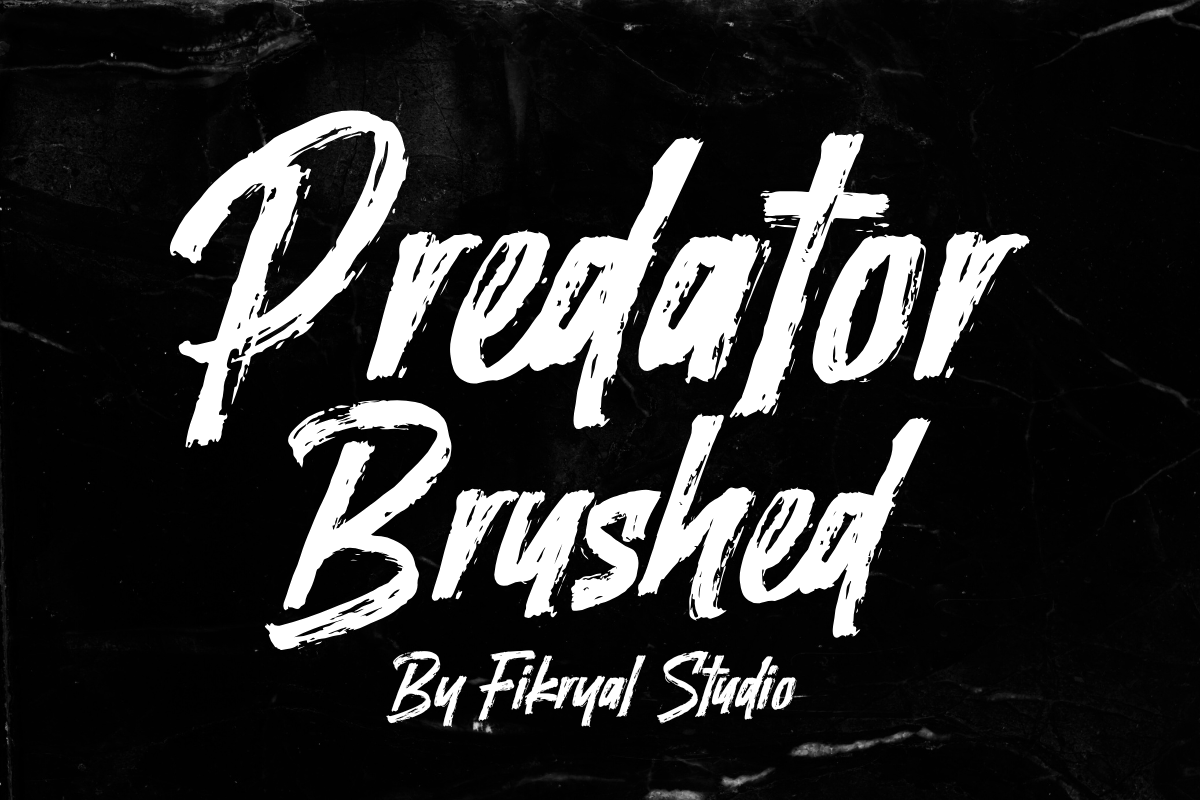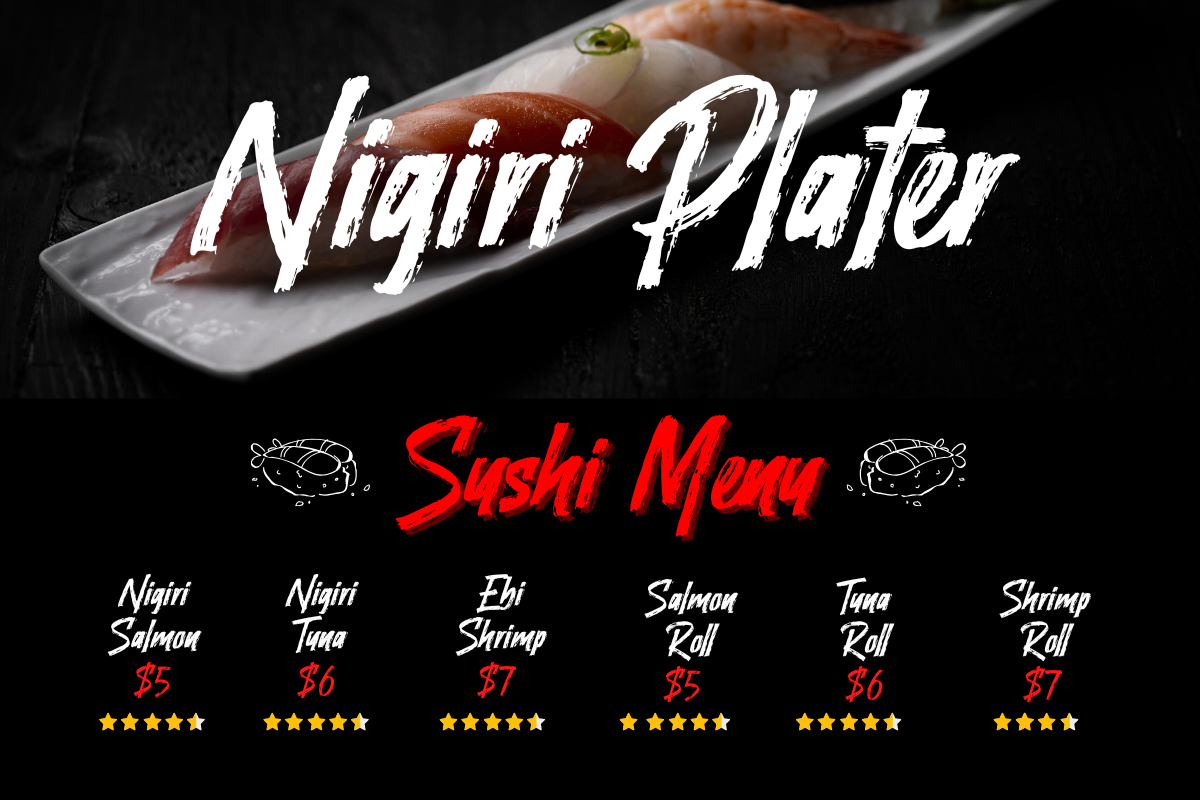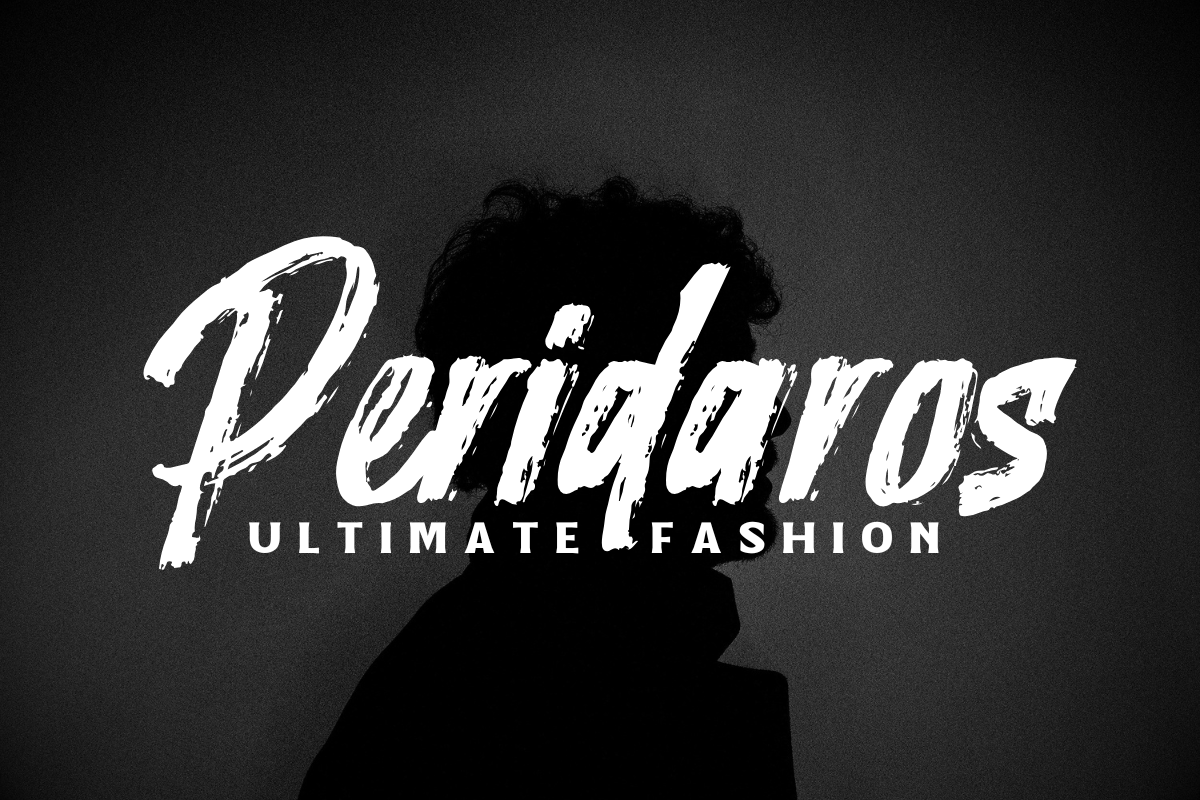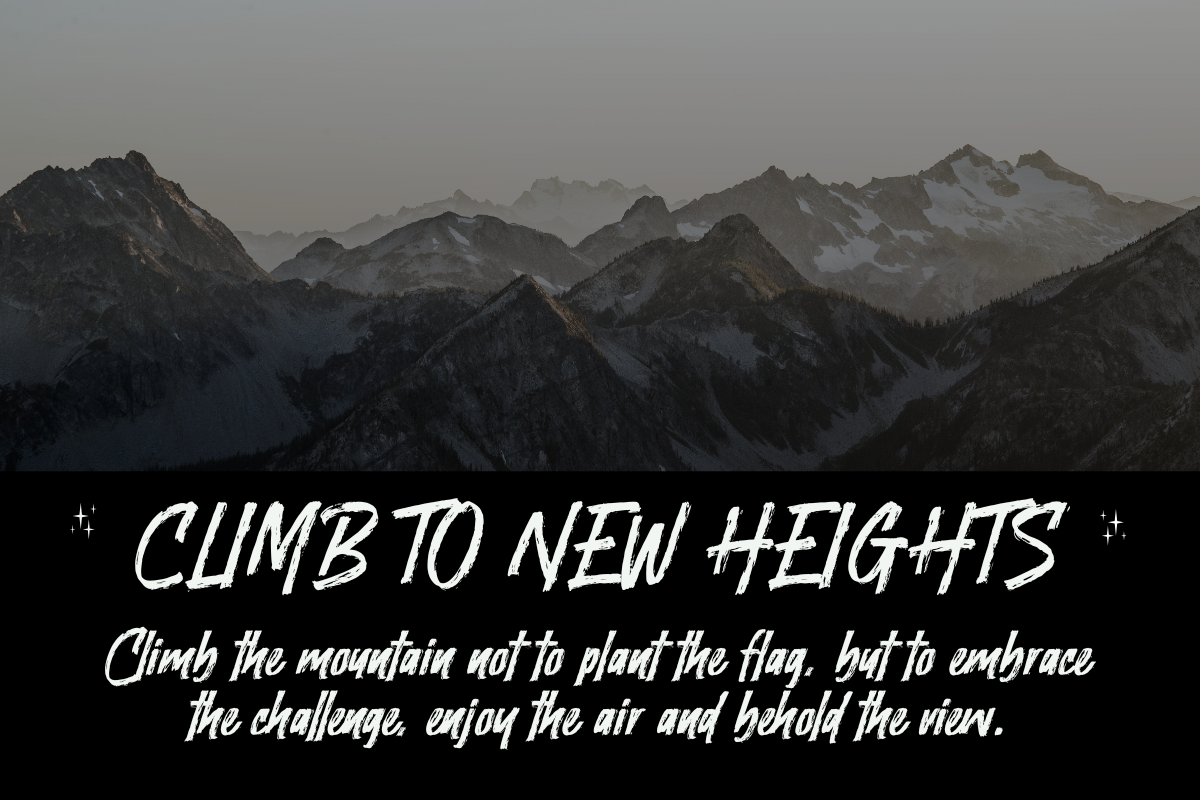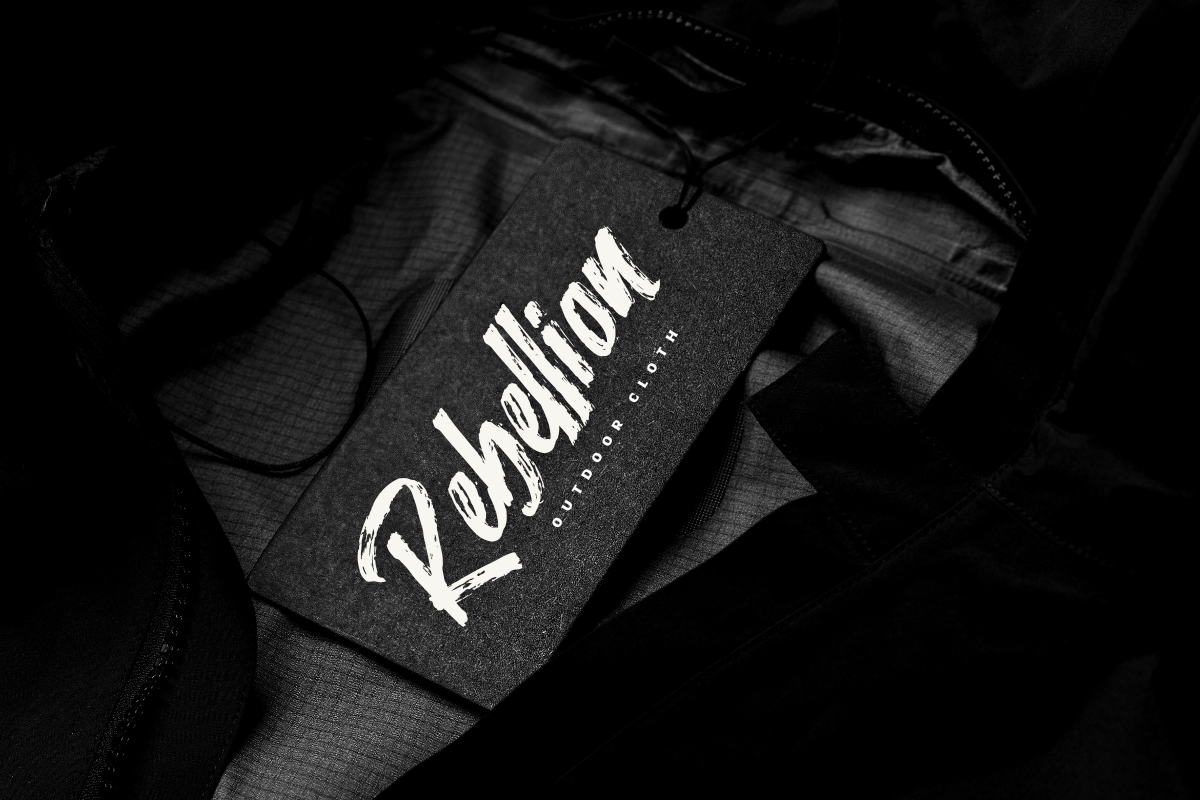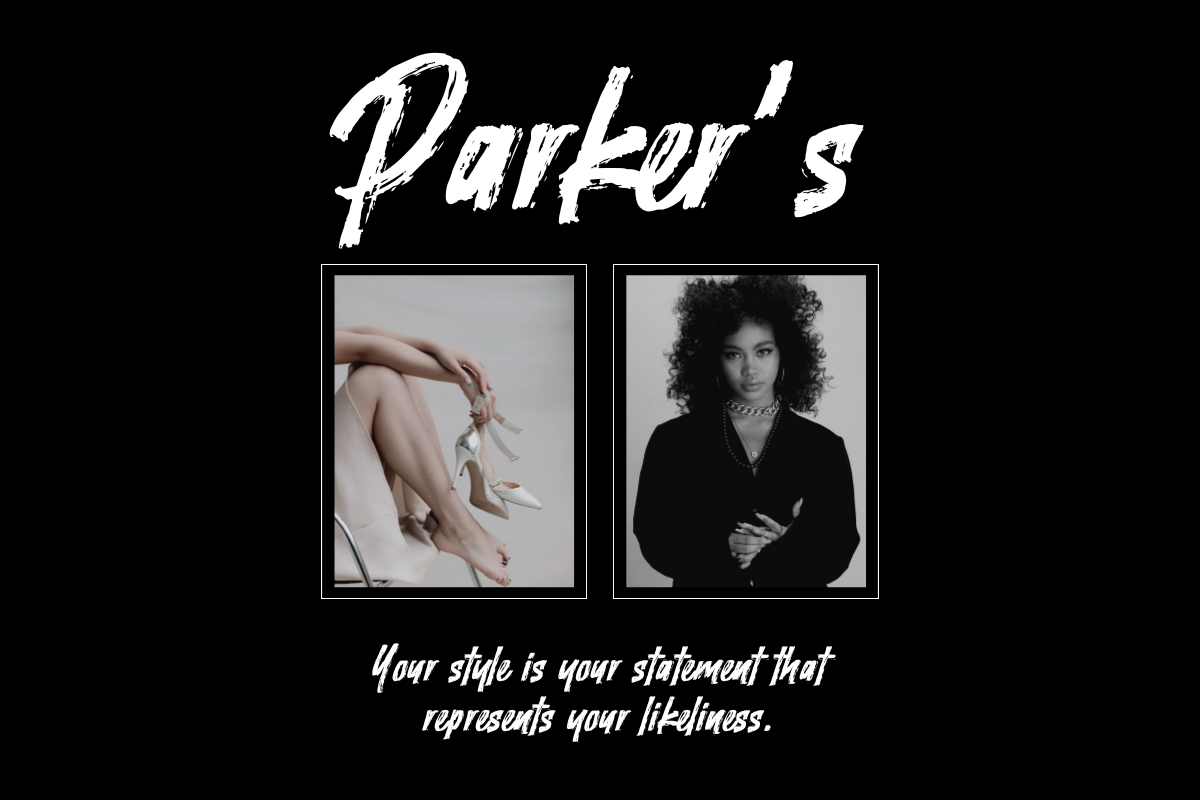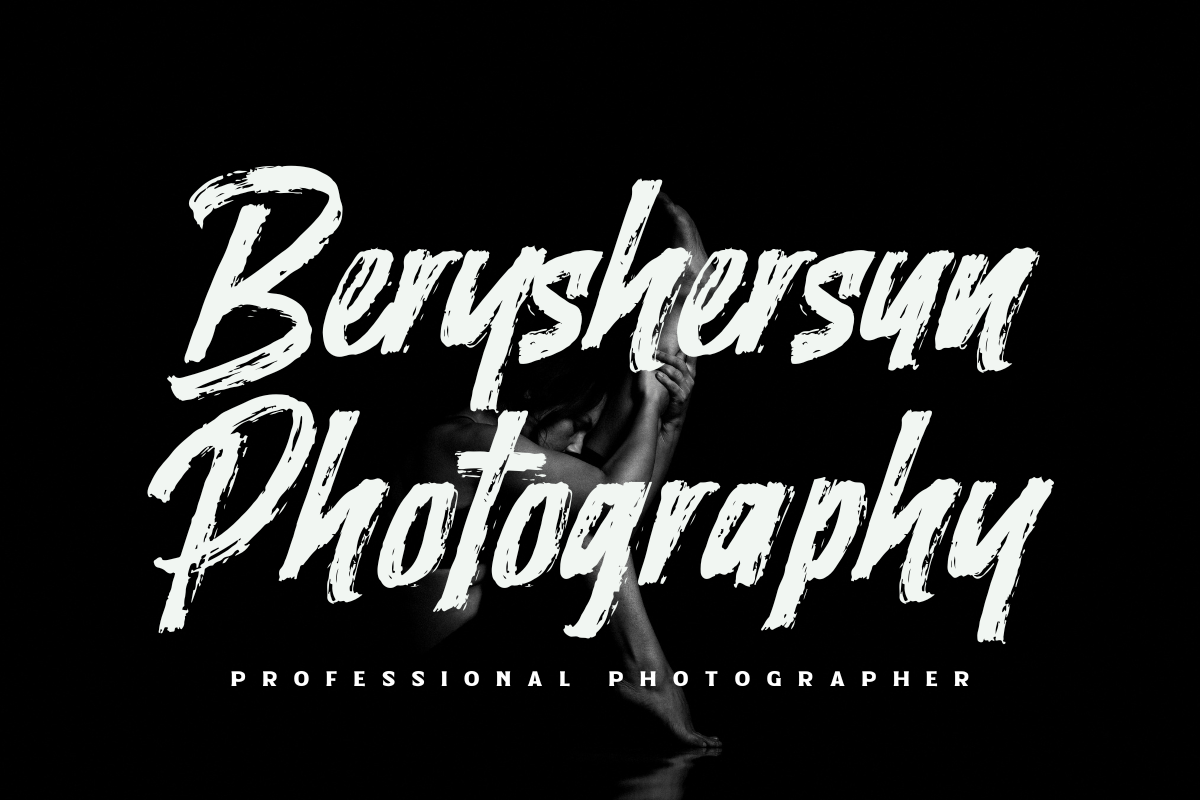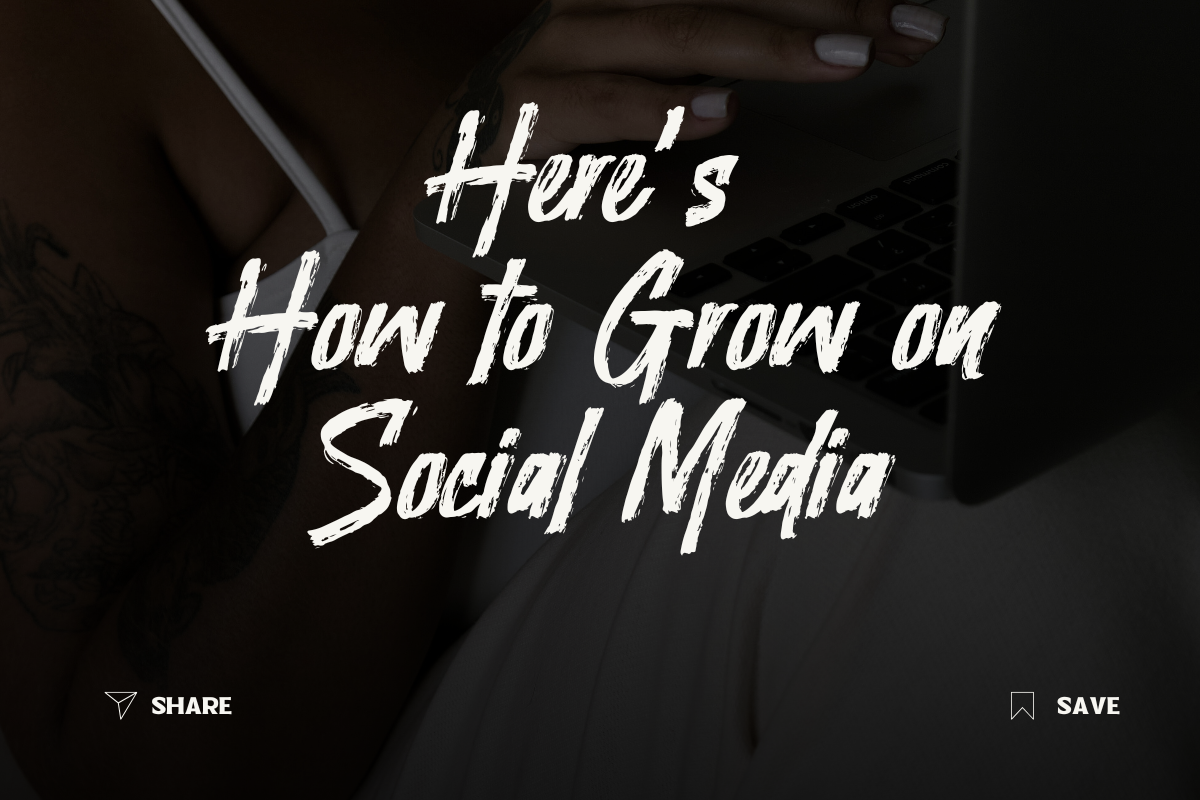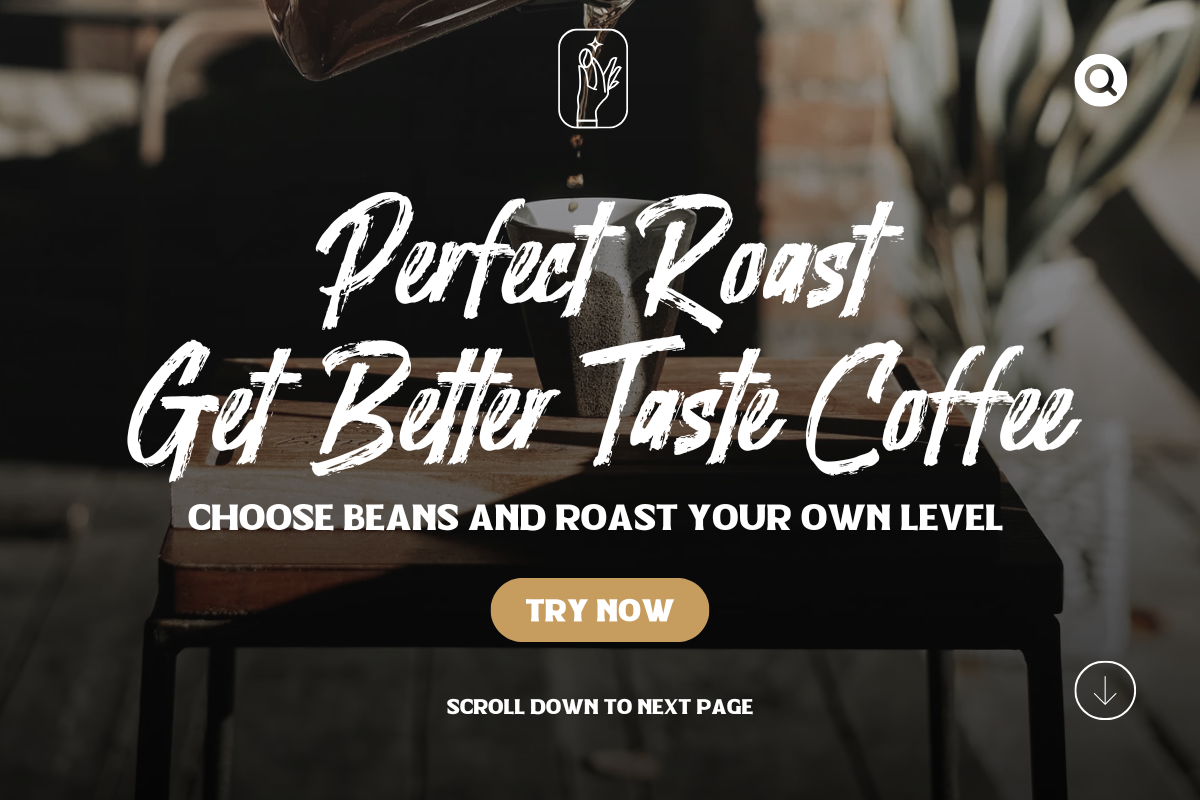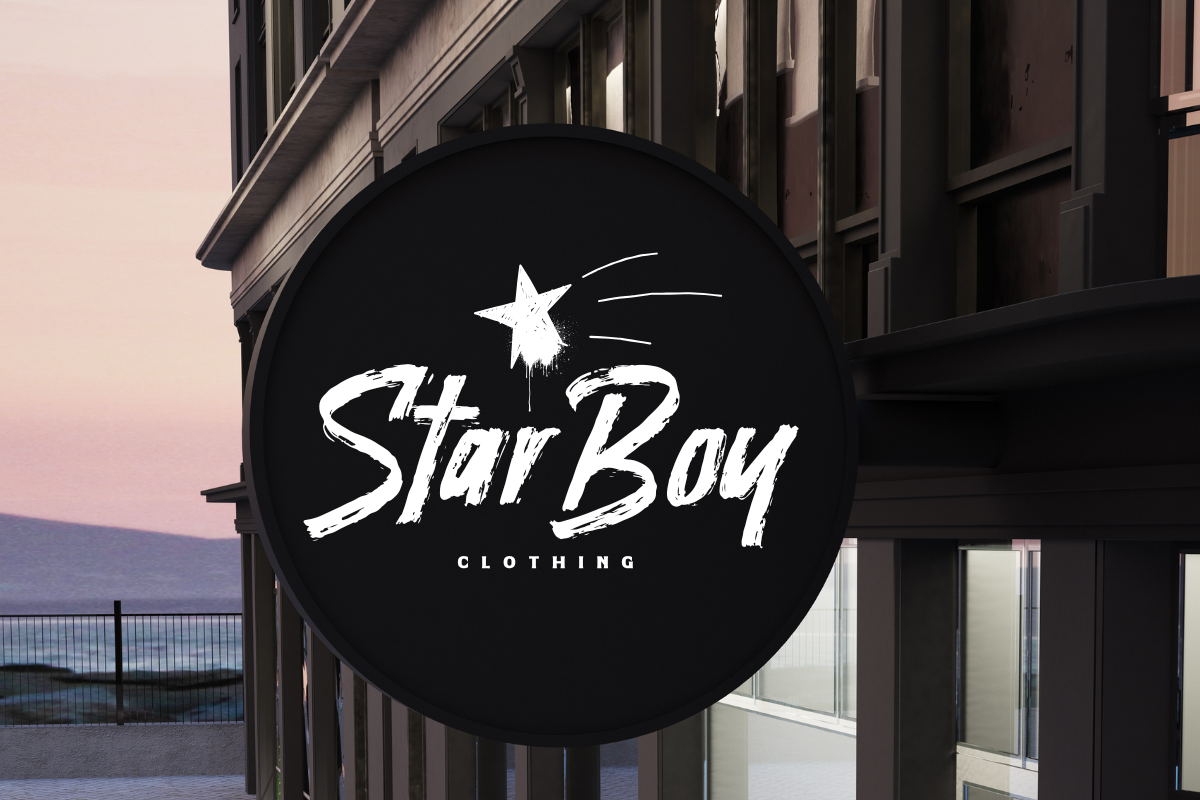
Predator Brushed – Brush Font
Unleash the Wild Energy with Predator Brushed!
Predator Brushed is a bold and powerful brush display font designed to bring raw energy and dynamic movement to your designs. Featuring rough, hand-painted strokes, this font delivers a strong, aggressive, and expressive look, perfect for projects that demand attention.
Ideal for branding, posters, merchandise, apparel, sports designs, packaging, and more, Predator Brush captures the essence of fearless creativity. Whether you’re working on a streetwear logo or an eye-catching advertisement, this font will add a wild and rebellious touch to your work.